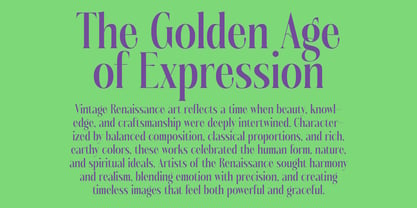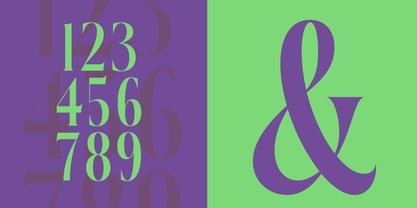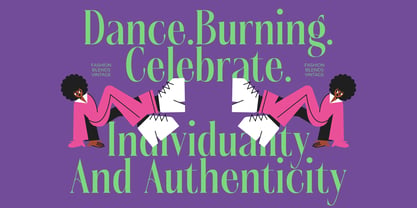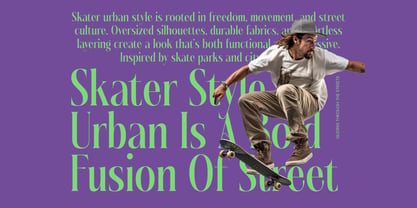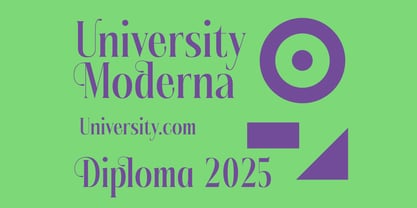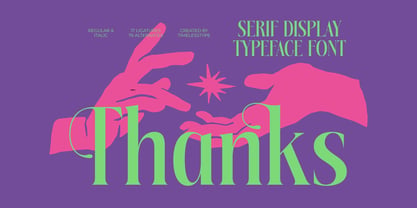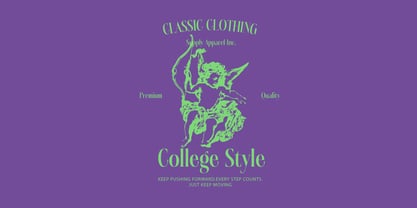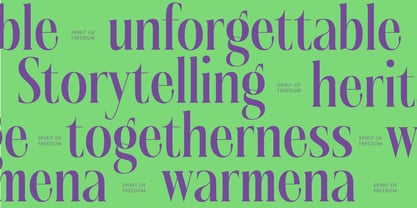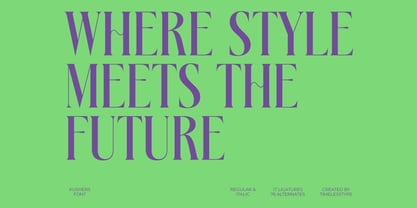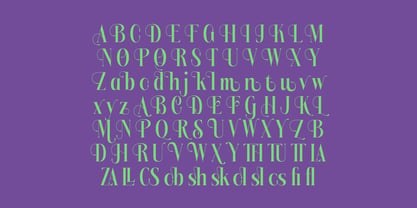
Kushers
von Timelesstype Studio
Die Schriftfamilie Kushers wurde von Heru Utama Putra entworfen und von Timelesstype Studio veröffentlicht. Kushers enthält 2 Stile und Familienpaketoptionen. Mehr über diese Familie
Kushers is a bold serif-display typeface crafted with high contrast strokes, expressive curves, and refined editorial elegance. Designed to stand out in modern branding, fashion visuals, poster headlines, and creative layouts, this typeface blends classic serif structure with contemporary artistic flair. Equipped with 17 ligatures, 76 stylistic alternates, and both Regular & Italic styles, Kushers gives designers full flexibility to create dramatic, stylish, and polished typography compositions. Perfect for luxury branding, magazine titles, packaging, and standout visual identities.
Designer: Heru Utama Putra
Aktuelle Foundry: Timelesstype Studio